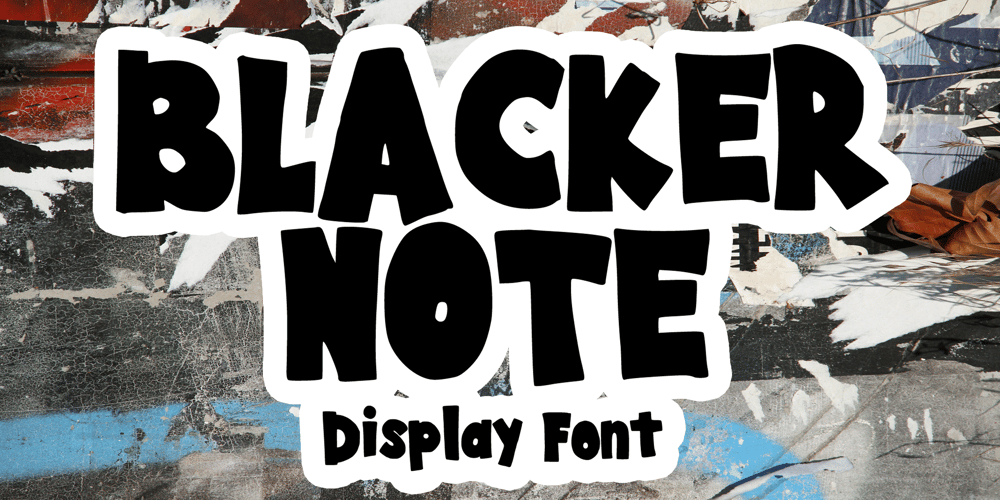
Blacker Note Font Family was designed by Gabriel Valentinus and published by Mvmet. Blacker Note contains 1 styles and family package options. Blacker Note is a fun bold display font, inspired by 90s graffiti and street art. It will elevate a wide range of design projects to the highest level. You can use this font for many design ideas such as stickers, t-shirt designs, amazing logo designs, magazine or book covers, comics, cartoon drawings, and many more. This font will add a super cool touch to your designs!